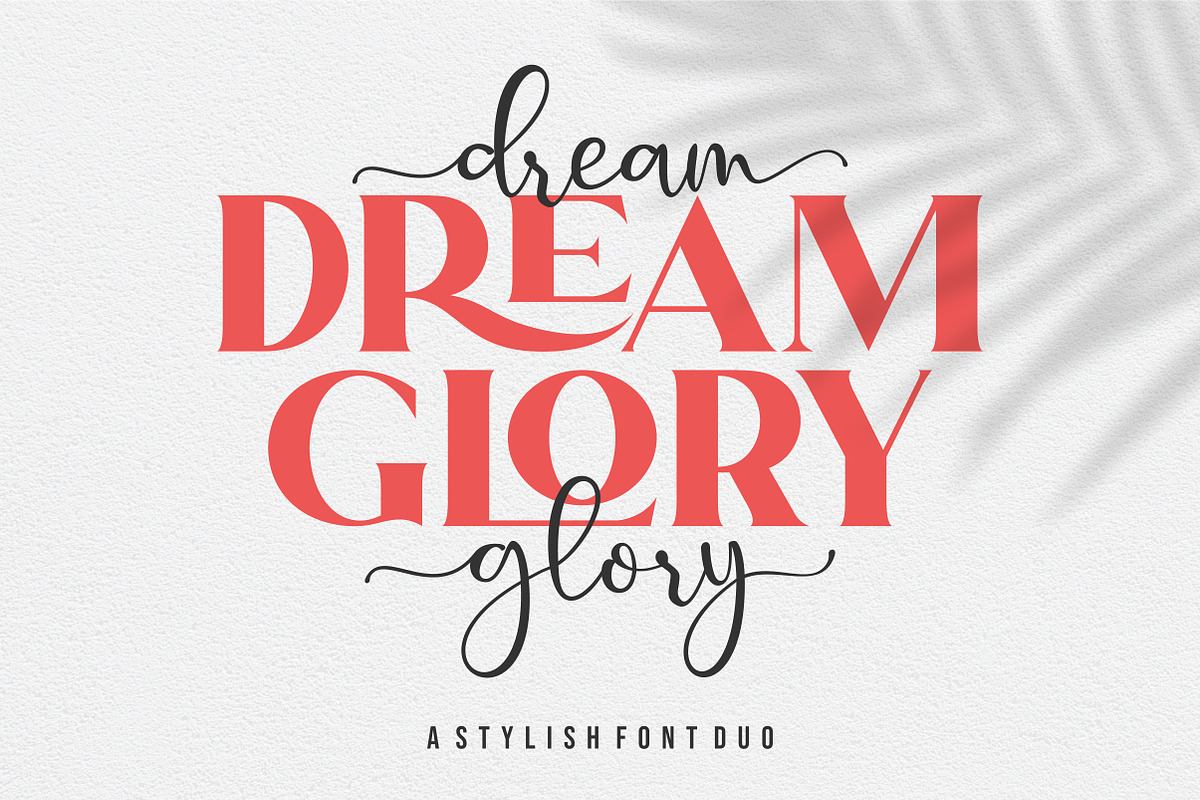
Dream Glory | A Stylish Font Duo Free Download
Dream Glory | A Stylish Font Duo Free Download is a beautifully matched pair of fonts combining a chic serif with a flowing script. This elegant duo is perfect for logos, wedding invitations, branding, blog headers, fashion projects, and social media designs that need a touch of modern sophistication and timeless grace.
The serif font brings structure and professionalism, while the script adds a personalized, handwritten flair—together offering balance and versatility. Dream Glory Free Download also includes ligatures and stylistic alternates, making it easy to create custom, stylish typography.